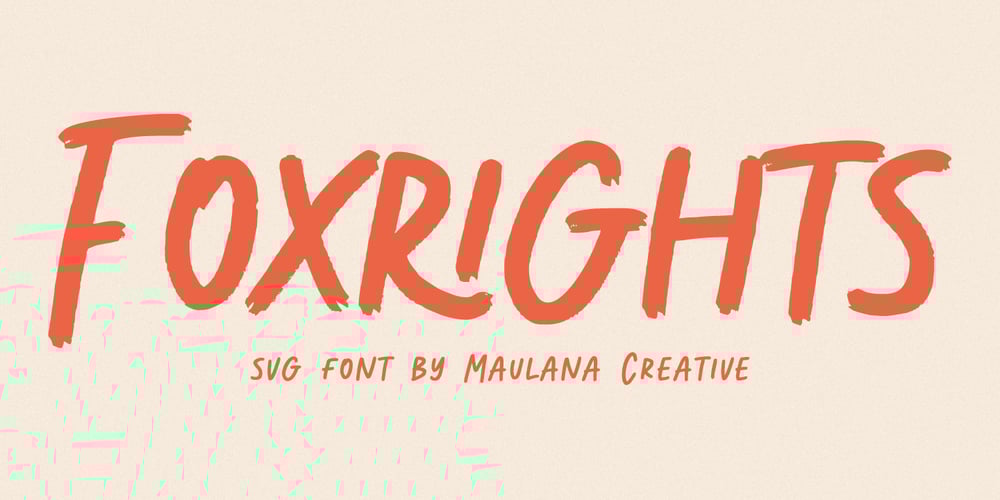
Foxrights Font Family was designed by Gilang Maulana and published by Maulana Creative. Foxrights contains 1 styles and family package options. Foxrights is an Handwritten font, with bold stroke, a bit slant and fun character. It has Opentype features ligatures of character, To give you an extra creative work. Foxrights font support multilingual more than 100+ language. This font is good for logo design, Social media, Movie Titles, Books Titles, a short text even a long text letter and good for your secondary text font with sans or serif. Make a stunning work with Foxrights font. Cheers, MaulanaCreative